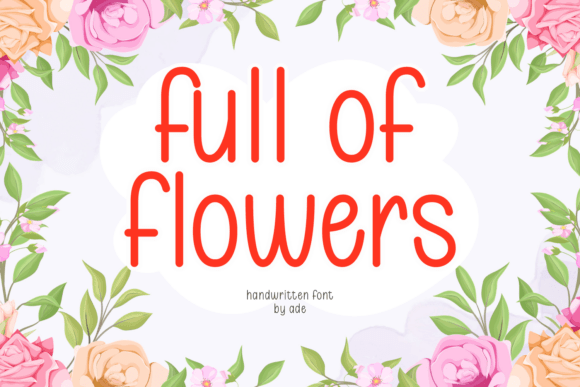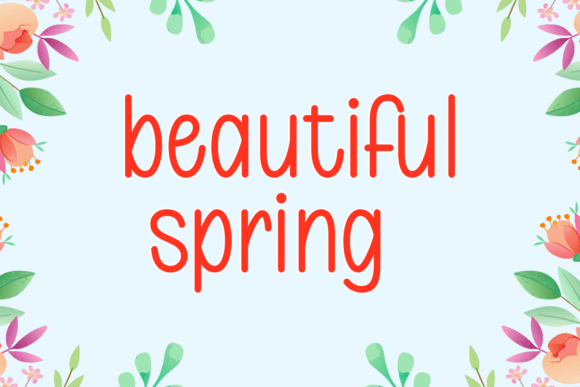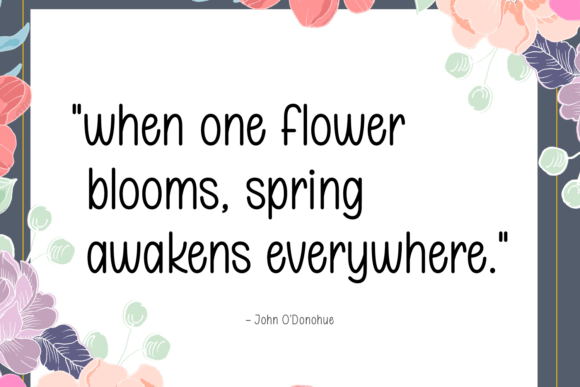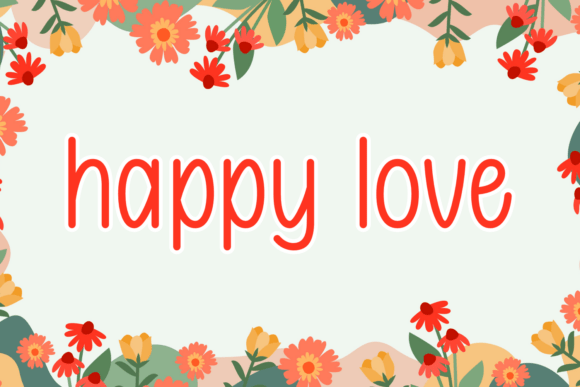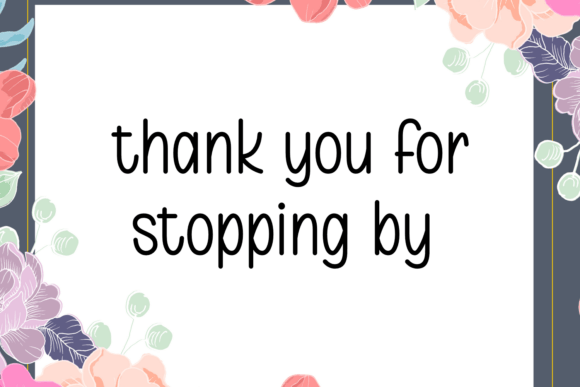
Full of Flowers Font
Full of Flowers is a charming and whimsical handwritten font with a smooth, rounded style that radiates warmth and joy. Its cheerful and casual lettering makes it perfect for greeting cards, invitations, branding, children’s books, and DIY projects. Whether you’re designing for spring, floral themes, or cozy crafts, this font brings a delightful touch of fun and elegance to your work!